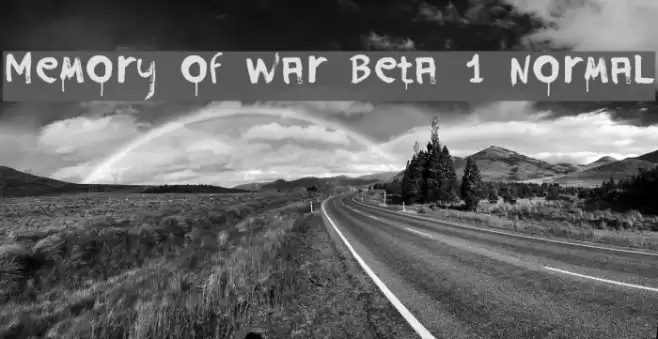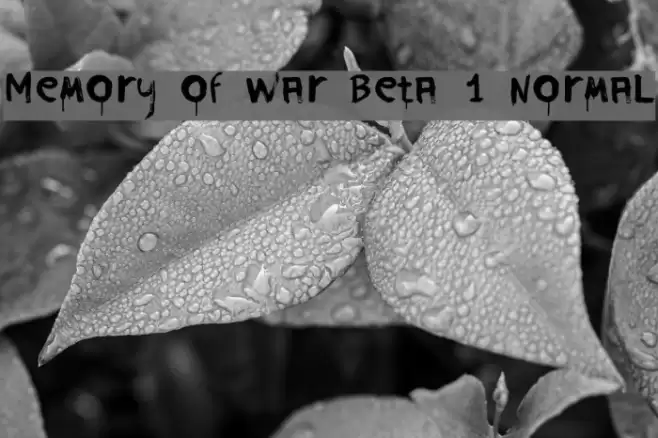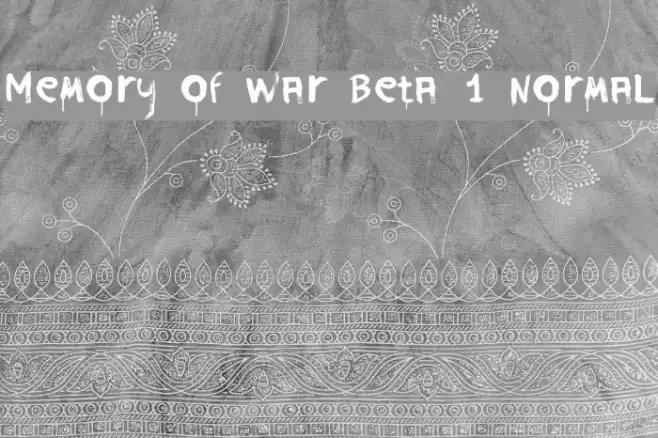
Memory of War Beta 1 Normal Font
This font features a bold, expressive style with a hand-painted appearance, reminiscent of graffiti or street art. The characters have a rough, textured look, with uneven edges and occasional drips, adding to its raw and edgy aesthetic. The uppercase and lowercase letters maintain a consistent style, with a playful yet rebellious vibe. Numbers and special characters follow the same artistic theme, making the font suitable for projects that require a strong, impactful visual statement.
A bold, graffiti-inspired font with a hand-painted, textured style from Uncategorized fonts.
- Proposed Projects: Ideal for album covers, streetwear branding, event posters, and urban-themed designs.
- Overall Style: Modern, Urban